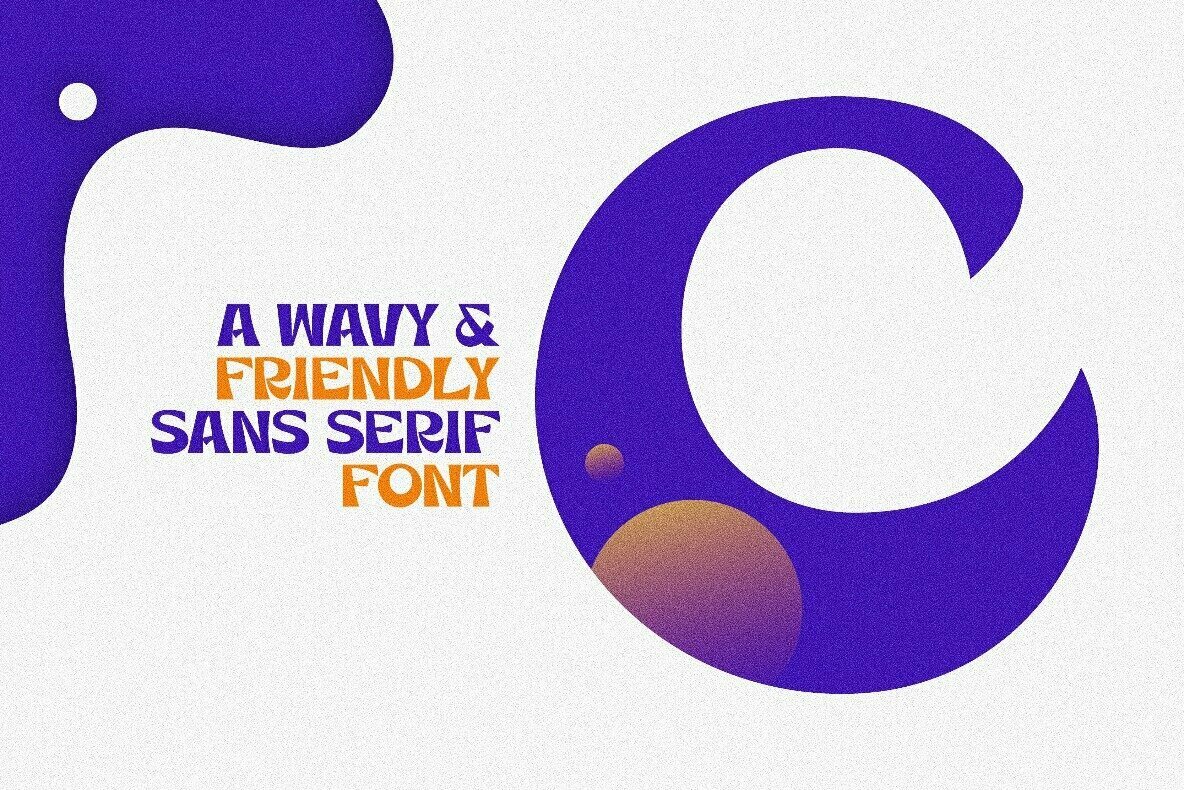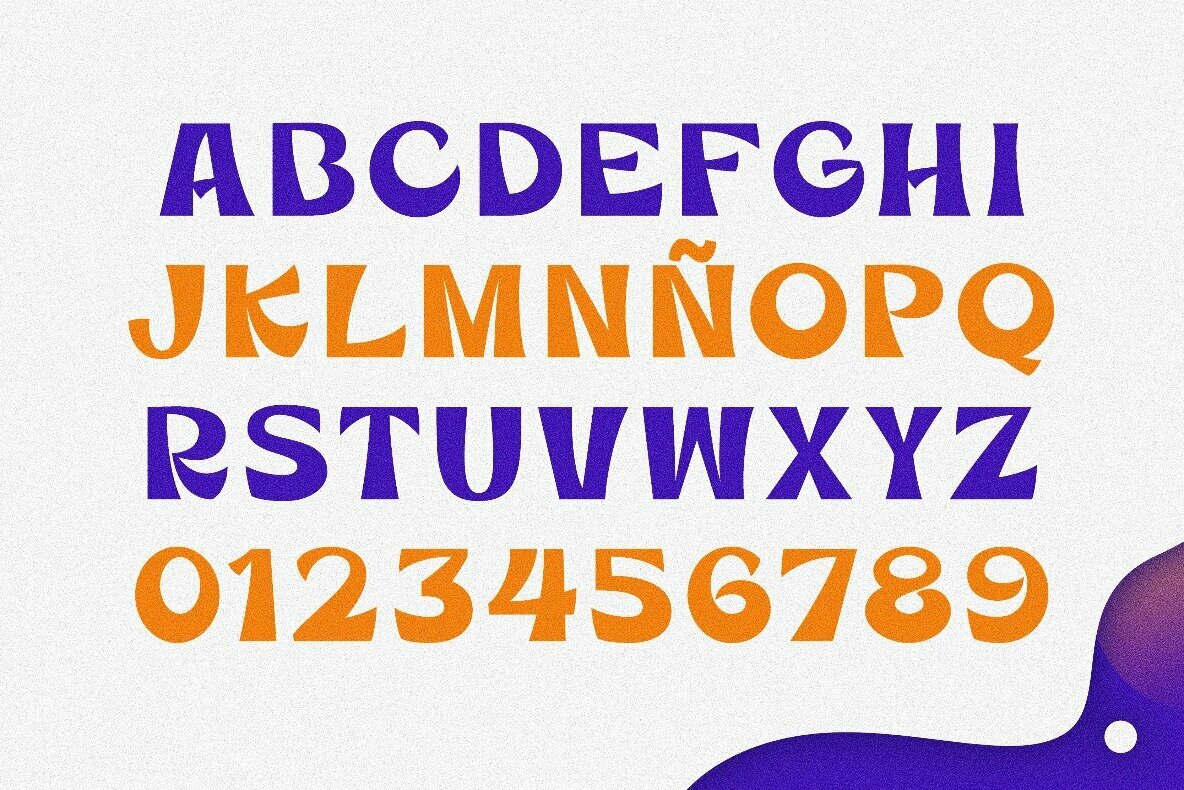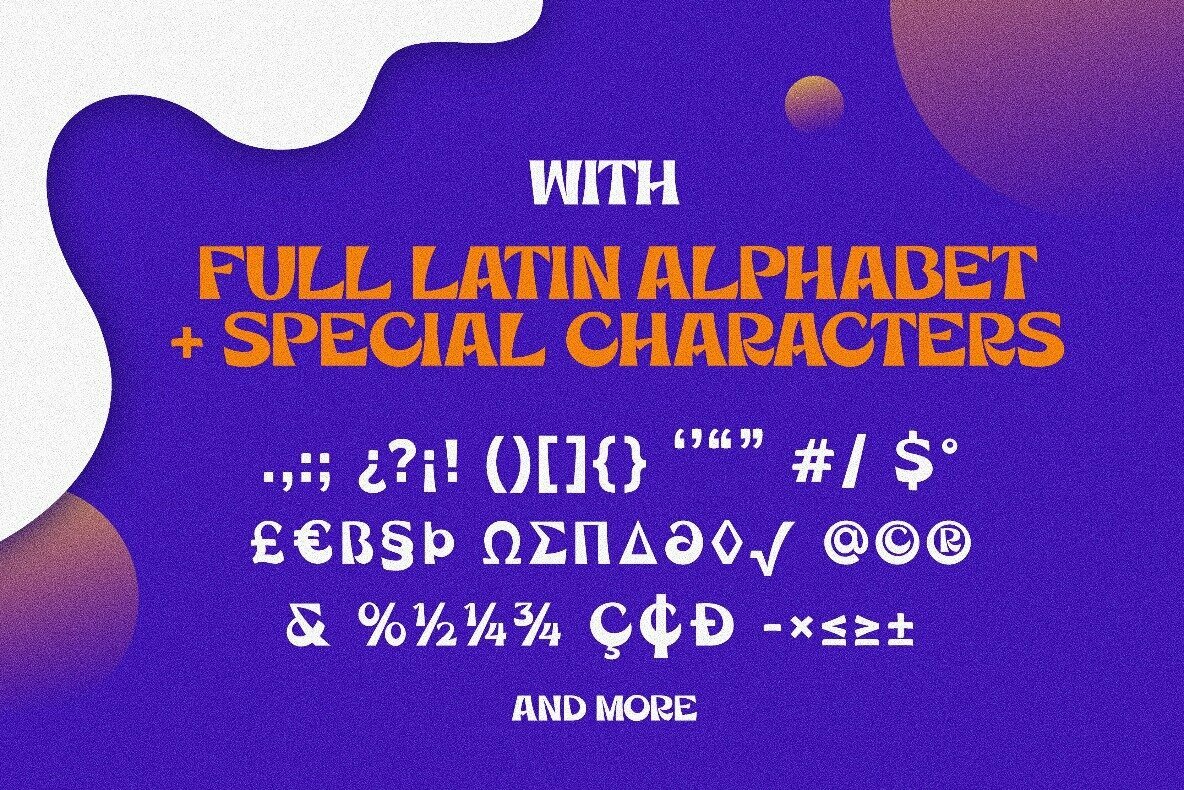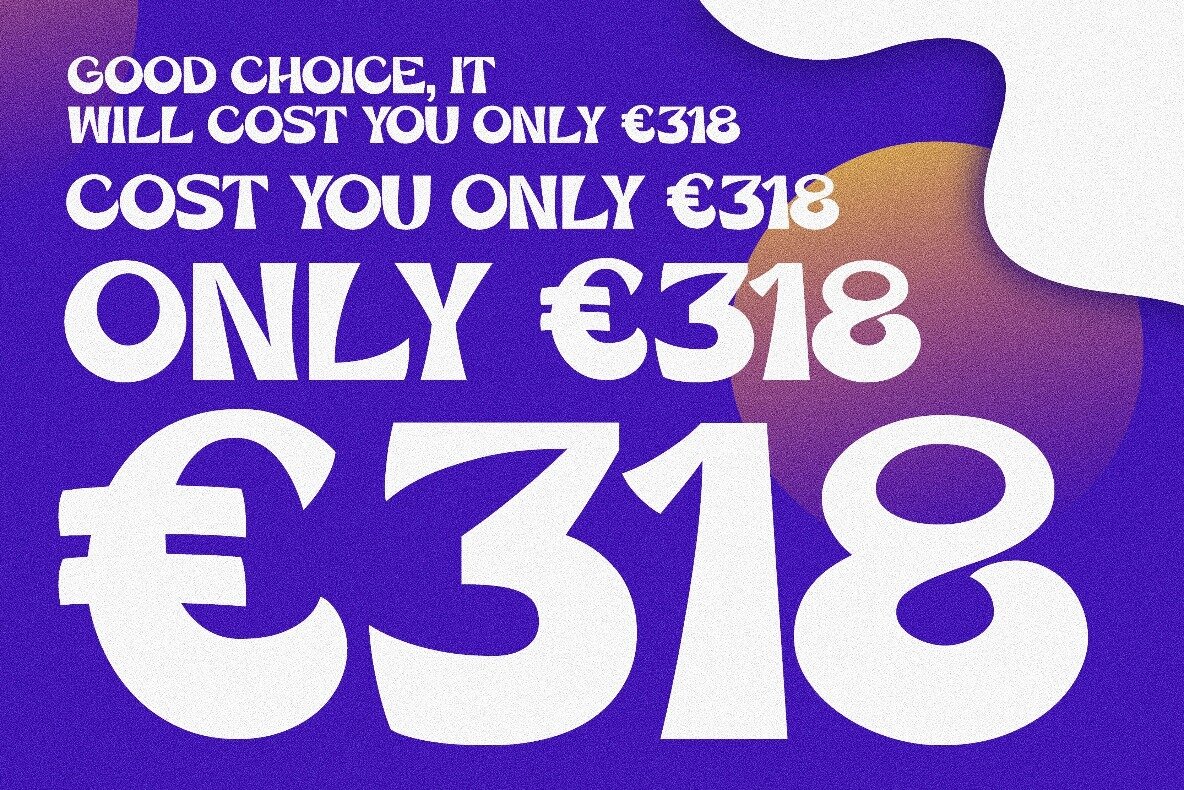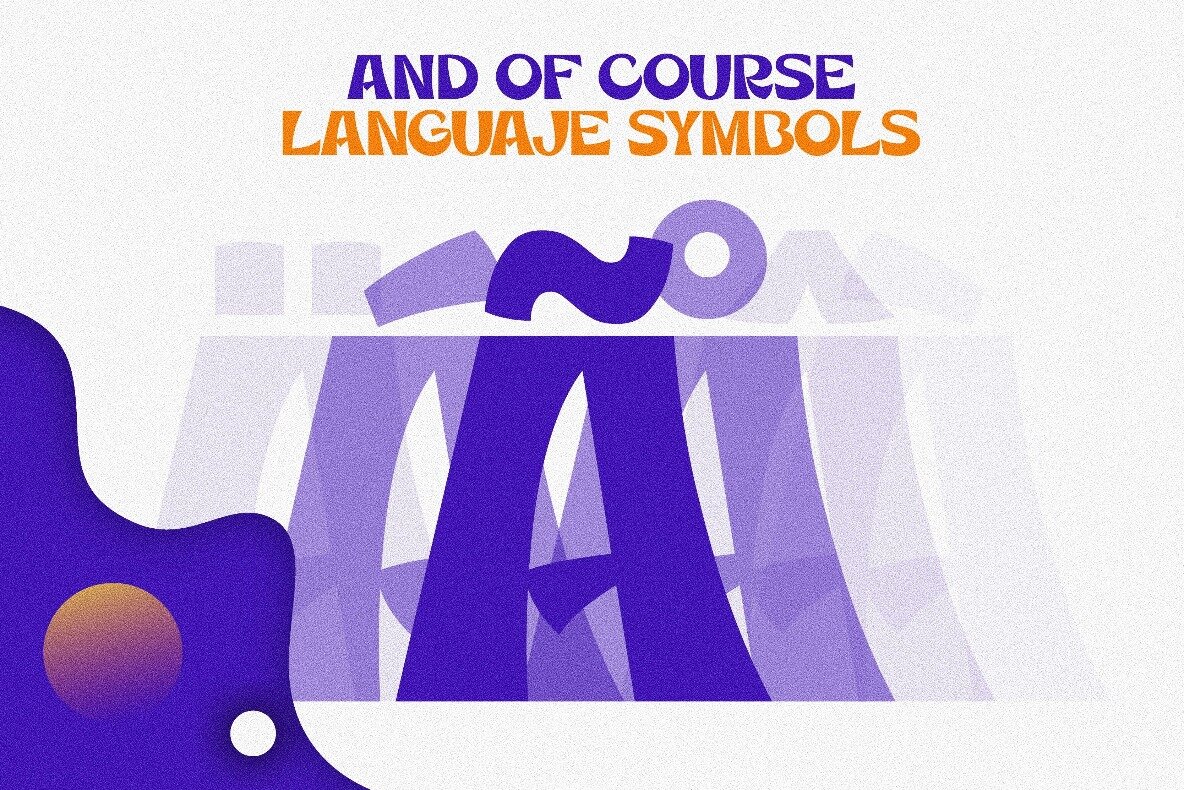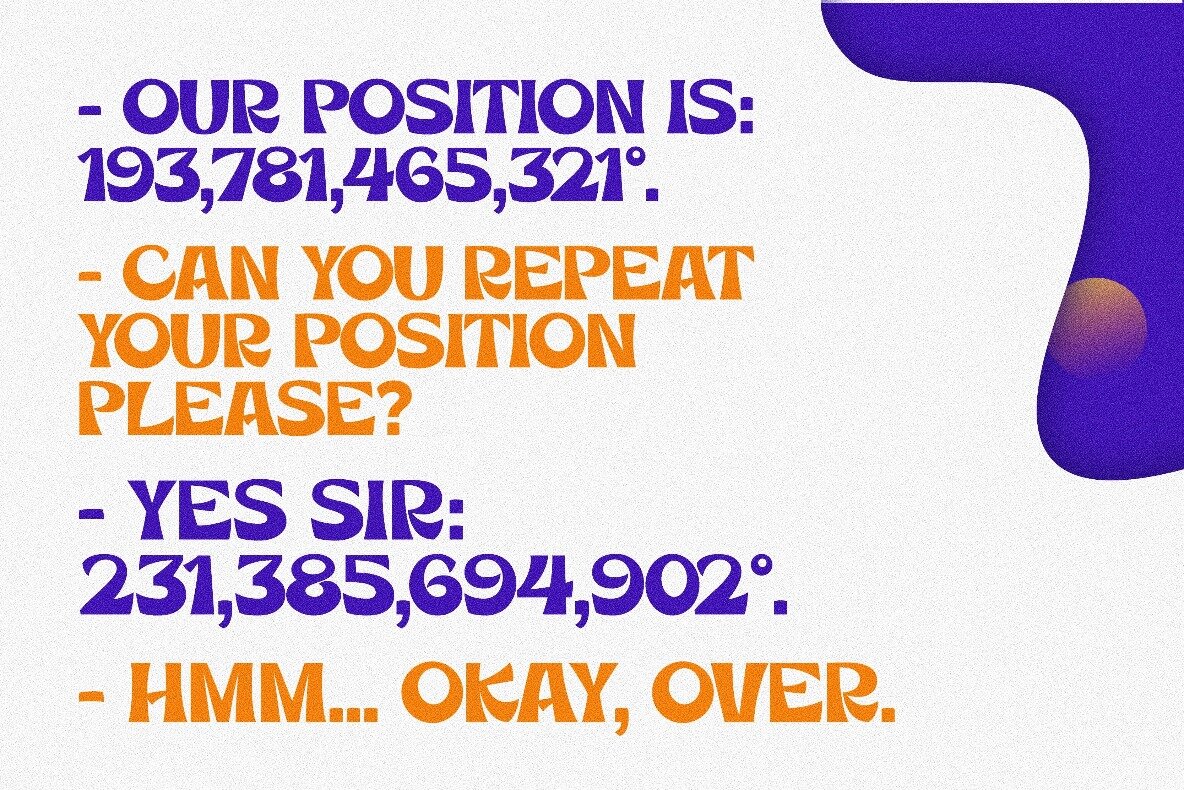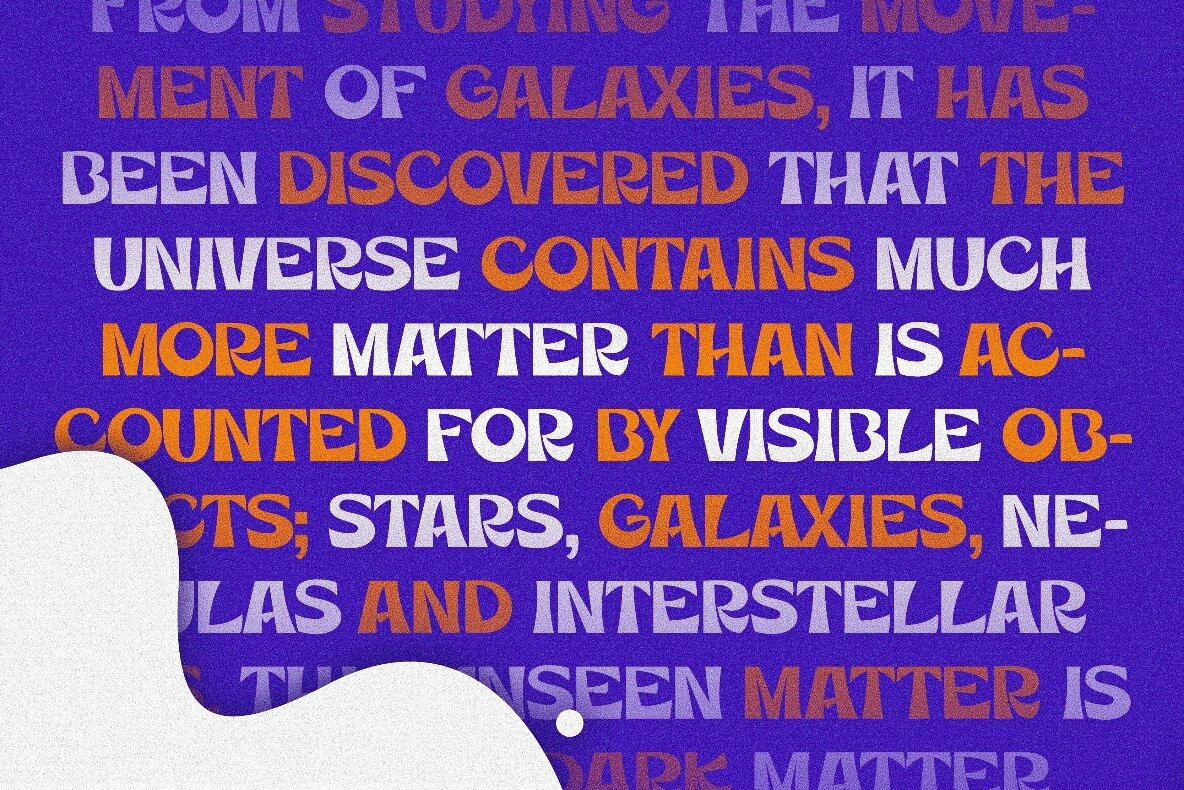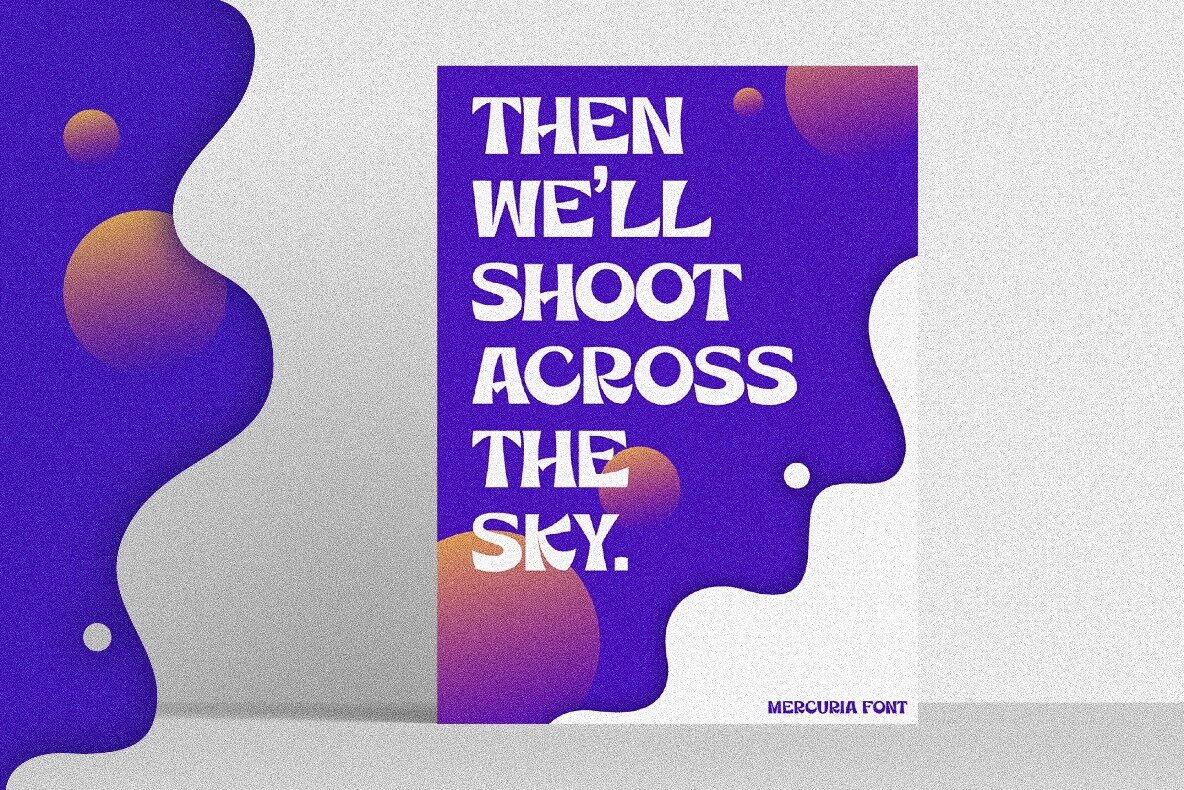
Mercuria Font
Mercuria
This is MERCURIA, a bold, powerful, original, wavy and friendly font. Its versatility allows Mercuria to be used in lots of different spaces and occasions, either using only a letter or creating long text lines, it will fit perfectly, giving your designs the perfect and necessary touch of originality and style.